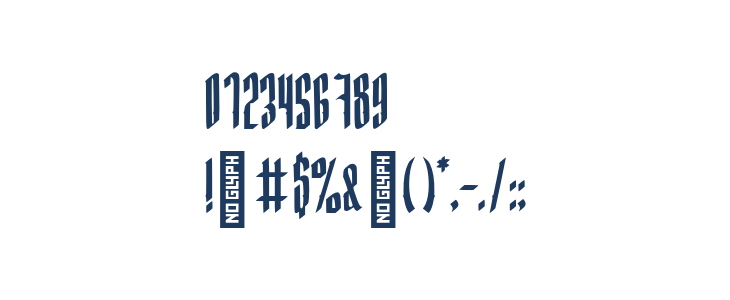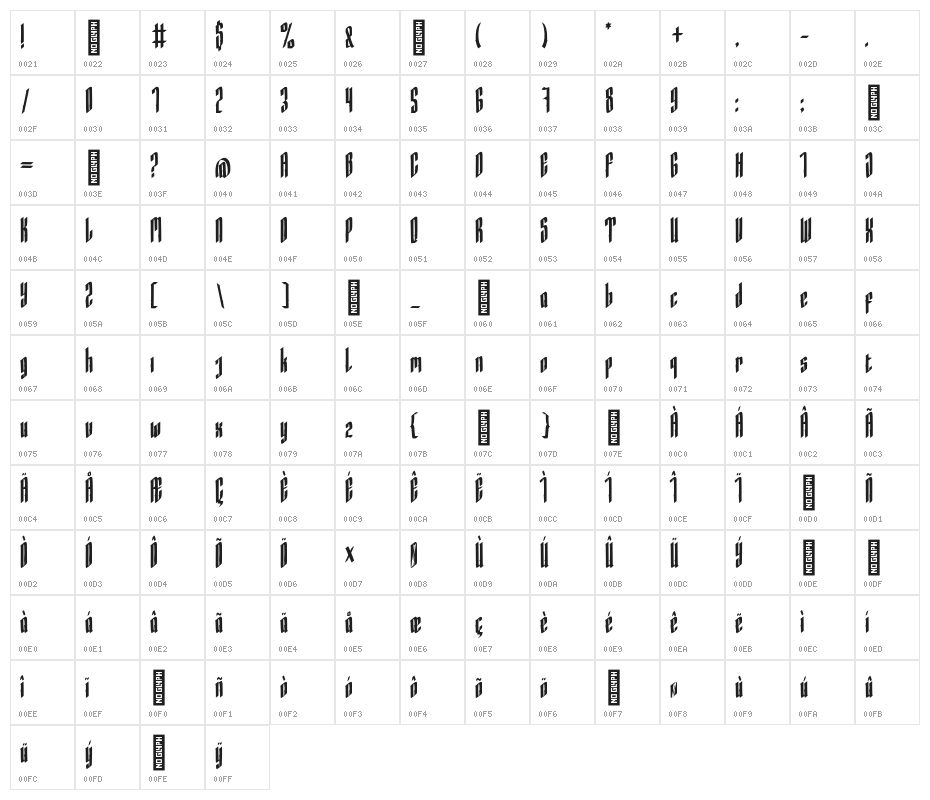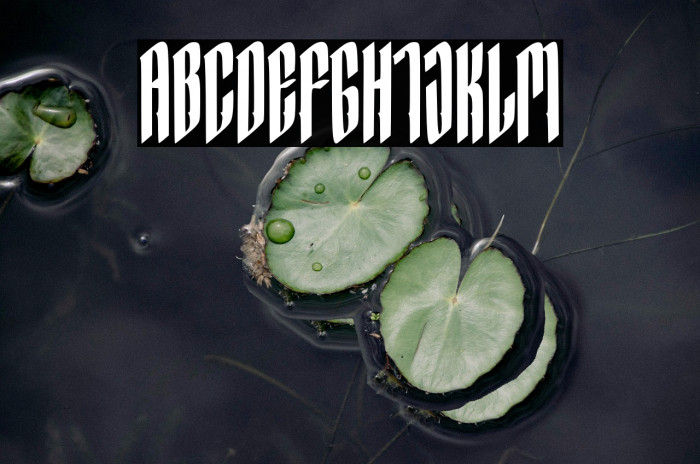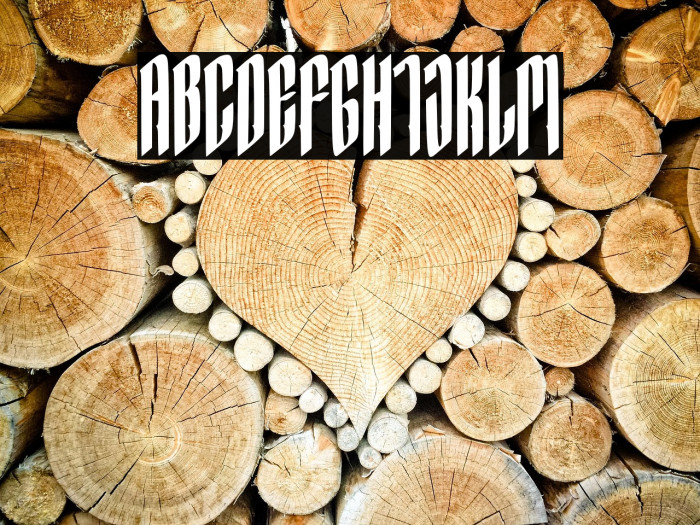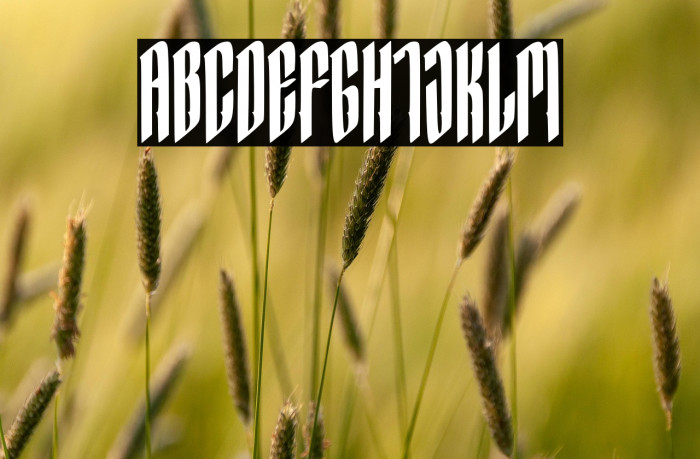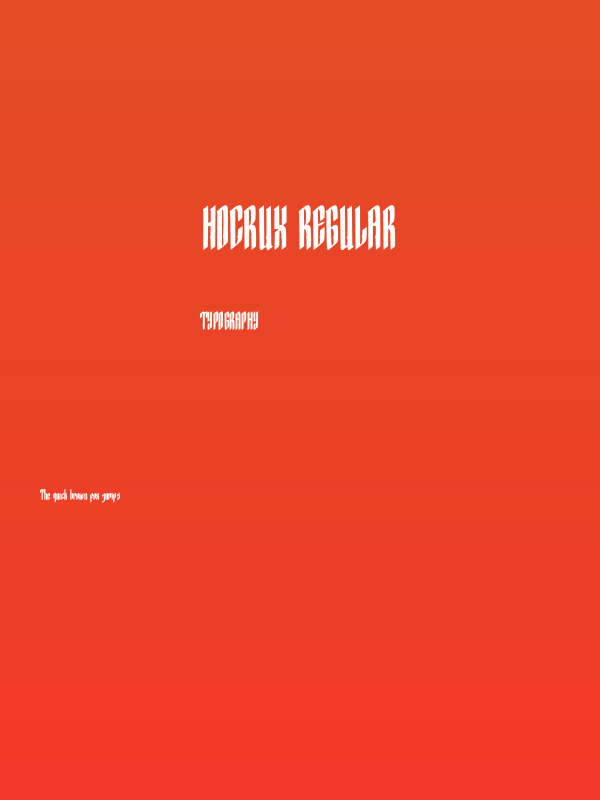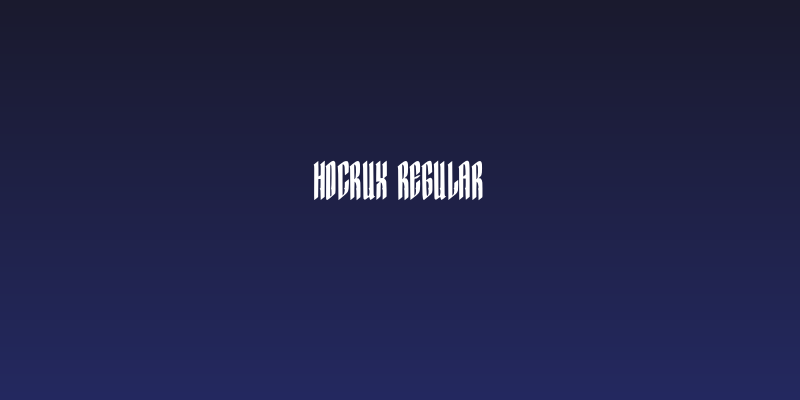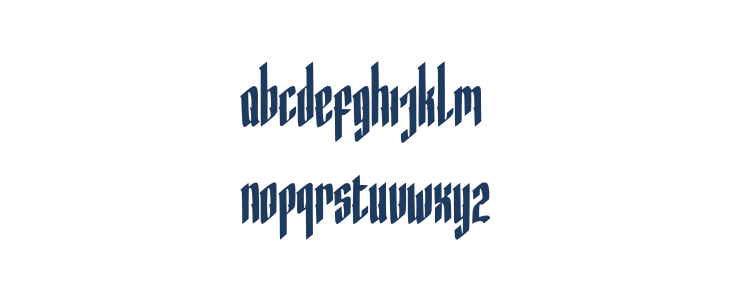
Hocrux Regular Font
Hocrux Regular Description
This font features a bold and striking design with sharp, angular edges and a distinct Gothic influence. The uppercase letters are tall and narrow, with a dramatic flair that gives them a commanding presence. The lowercase letters maintain the same angular style, creating a cohesive look across the alphabet. Numbers and special characters are designed to match the overall aesthetic, ensuring consistency throughout. The font's unique style makes it ideal for projects that require a bold and attention-grabbing typeface.